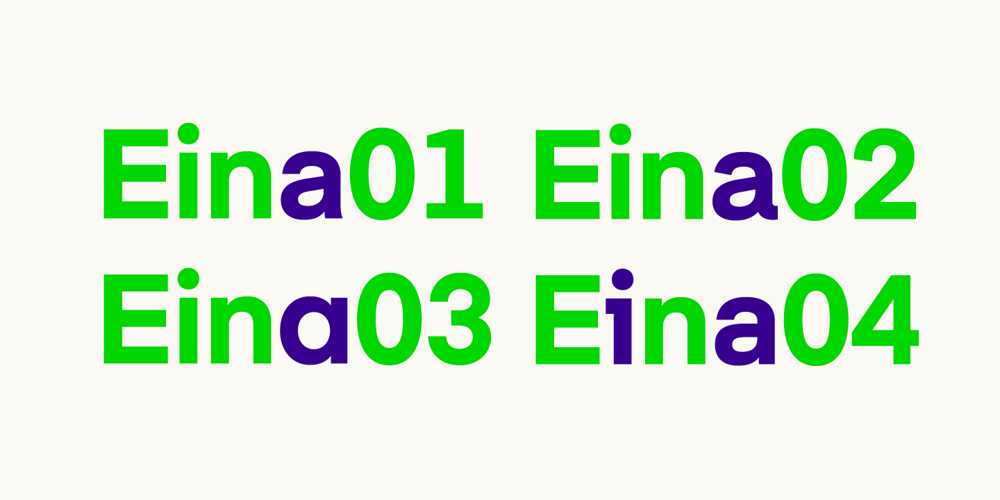
Eina Font Family was designed by Íñigo Jerez and published by Extratype. Eina contains 32 styles and family package options. Eina was designed as a corporate typeface for the design school “EINA, University Centre of Design and Art.” It’s not just a font to be used — Eina embodies an educational concept that transcends simple typographical use. Eina is a typeface to be explained and used to teach typography. The whole process of design and development is reflected in the publication “Four nuances of a typographical standard: A typeface for EINA.” Eina is a versatile and multipurpose sans-serif typeface, consisting of 32 original styles, organized into four categories: rational, humanist, geometric & industrial. Each category contains four weights with their corresponding italics. You can purchase the full family, each individual weights, or four packages with each categories.